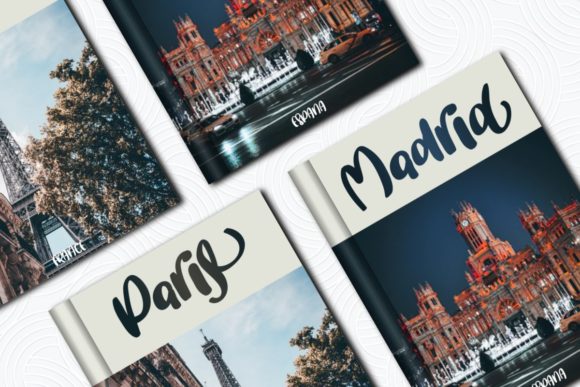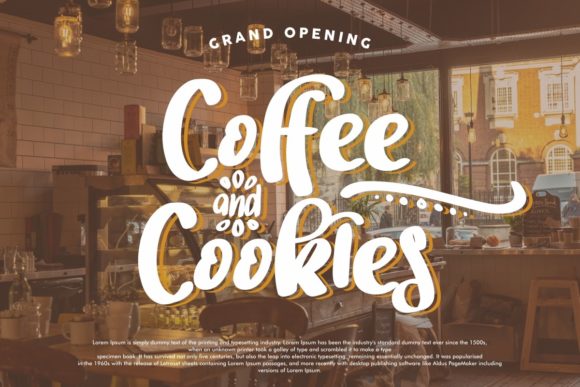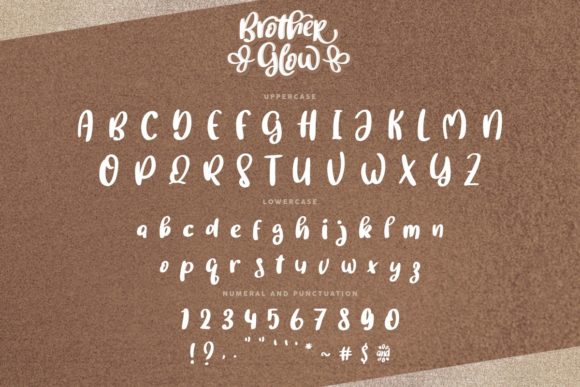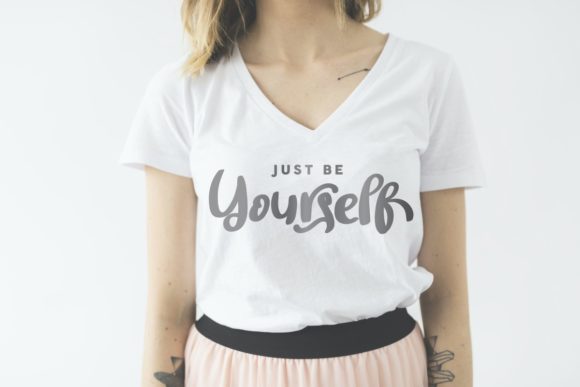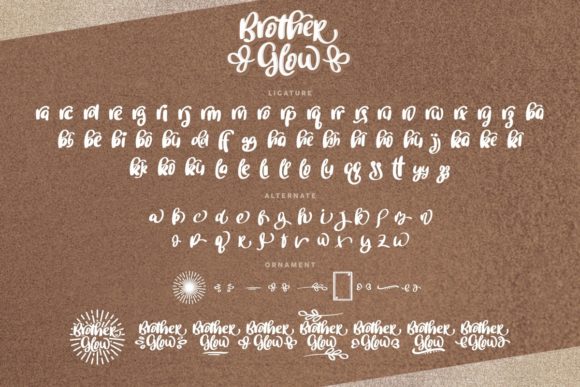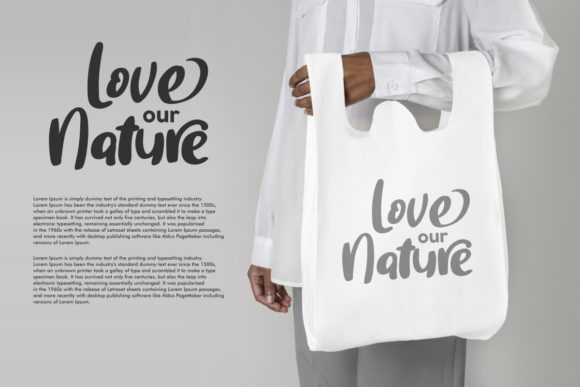
The Elusive Perfect Font: How Brother Glow Stole My Heart
I’ll never forget the frustration of working on a design project, hours pouring into finding the perfect font, only to feel like it was just out of reach. My client wanted something elegant, yet modern; a font that would elevate their brand without overpowering it. And then, I stumbled upon Brother Glow. This exquisite handwritten font has been a game-changer in my design journey, and I’m excited to share its beauty with you.
An Honest Review of Brother Glow
- ✨ Classy Calligraphic Influences: Brother Glow maintains a sophisticated, elegant feel that’s perfect for high-end branding, wedding invitations, or luxury product labels.
- ✅ Contemporary and Fresh: Despite its classic roots, this font feels modern and versatile, making it suitable for a wide range of design projects.
- 💫 PUA Encoded for Easy Access: With PUA encoding, accessing glyphs and swashes is a breeze, allowing you to experiment with different styles and combinations.
While Brother Glow is an amazing font, there are a few things to keep in mind:
- ⚠️ Glyph Overload: With so many glyphs and swashes available, it’s easy to get overwhelmed. Take some time to explore the font and plan your design before diving in.
- 🤔 Pairing Challenges: As with any script font, finding the perfect pairing can be tricky. Be prepared to experiment with different font combinations to find the perfect match.
The Story Behind Brother Glow
Brother Glow was inspired by the classic calligraphy of the past, with a modern twist. Its creator aimed to craft a font that would evoke the elegance of traditional lettering while still feeling fresh and contemporary. The result is a truly unique and versatile font that’s perfect for a wide range of design projects.
PUA (Private Use Area) encoding allows font creators to include additional glyphs and characters that aren’t part of the standard Unicode range. This means that Brother Glow users can access a wide range of swashes, glyphs, and alternates, making it easier to create unique and customized designs.
Q: How do I pair Brother Glow with other fonts?
Pairing Brother Glow with other fonts can be a bit tricky, but here are some general tips: try pairing it with a clean sans-serif font for contrast, or with a serif font for a more classic look. Experiment with different combinations to find the perfect match for your design.